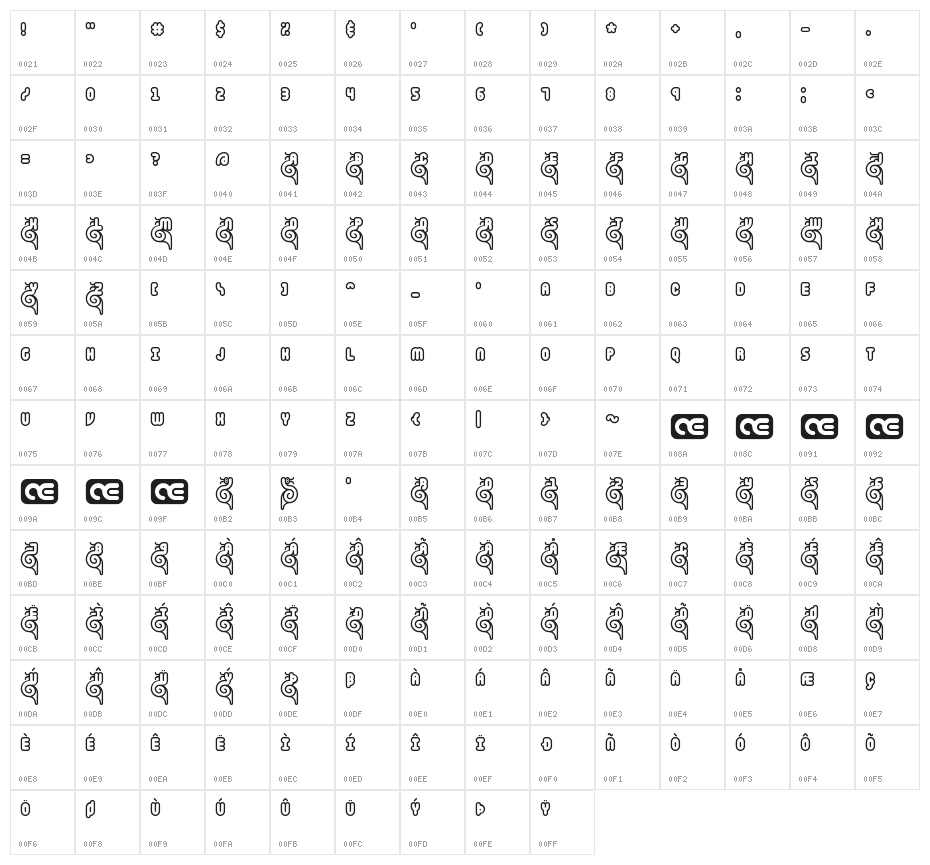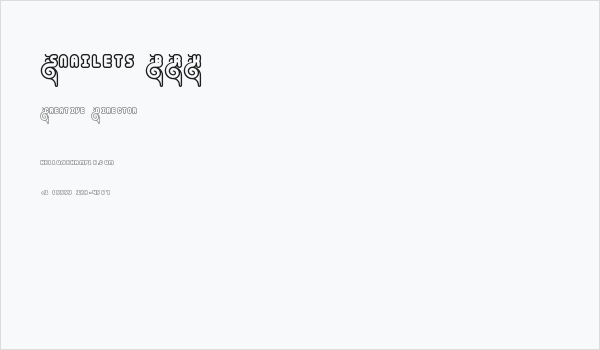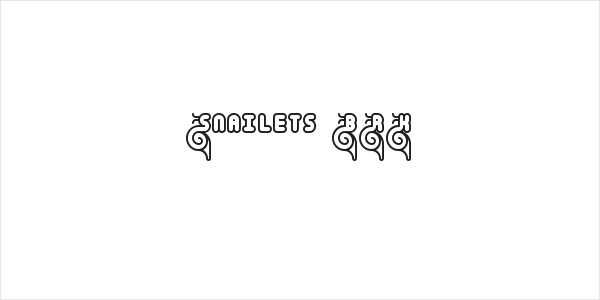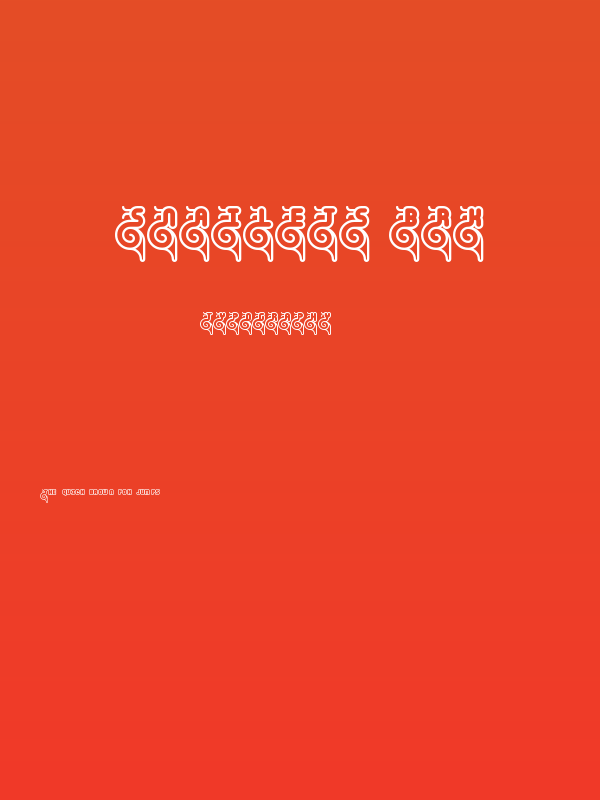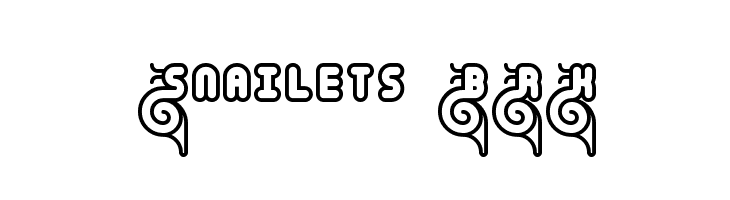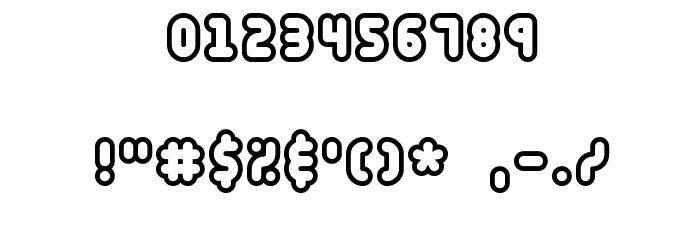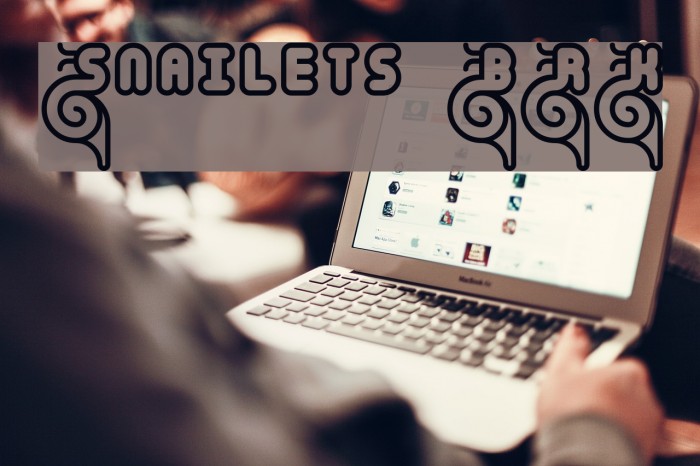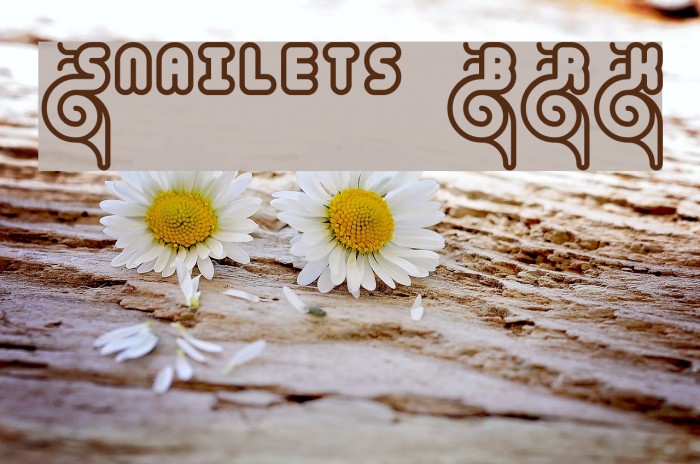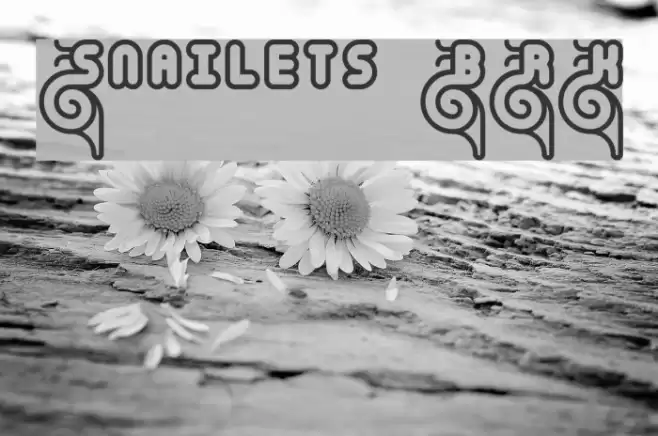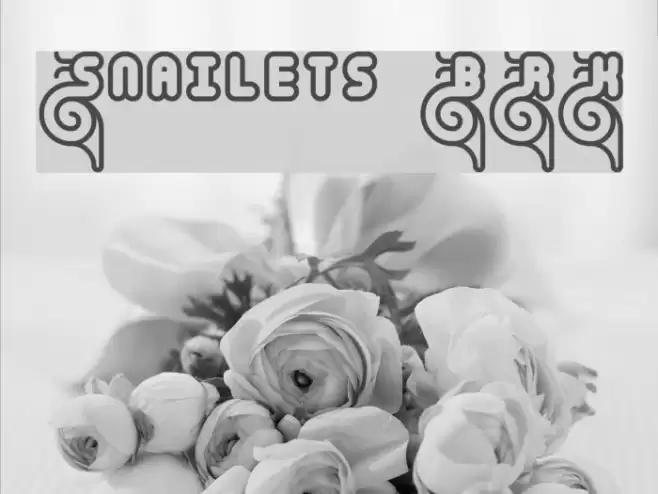
Snailets BRK Font
Snailets BRK Description
This font features a playful and whimsical design with a bold, outlined style. Each character is crafted with a thick, uniform stroke that creates a strong visual impact. The letters are rounded and slightly condensed, giving them a compact appearance. The font includes both uppercase and lowercase letters, numerals, and a variety of special characters. Its unique style makes it stand out, with a cartoonish and fun vibe that is perfect for creative projects. The consistent stroke width and clear outlines ensure readability while maintaining a distinctive look.
| Width | Condensed |
| Overall Style | Playful, Cartoonish |
| Proposed Projects | Ideal for children's books, comic strips, playful branding, and creative posters. |